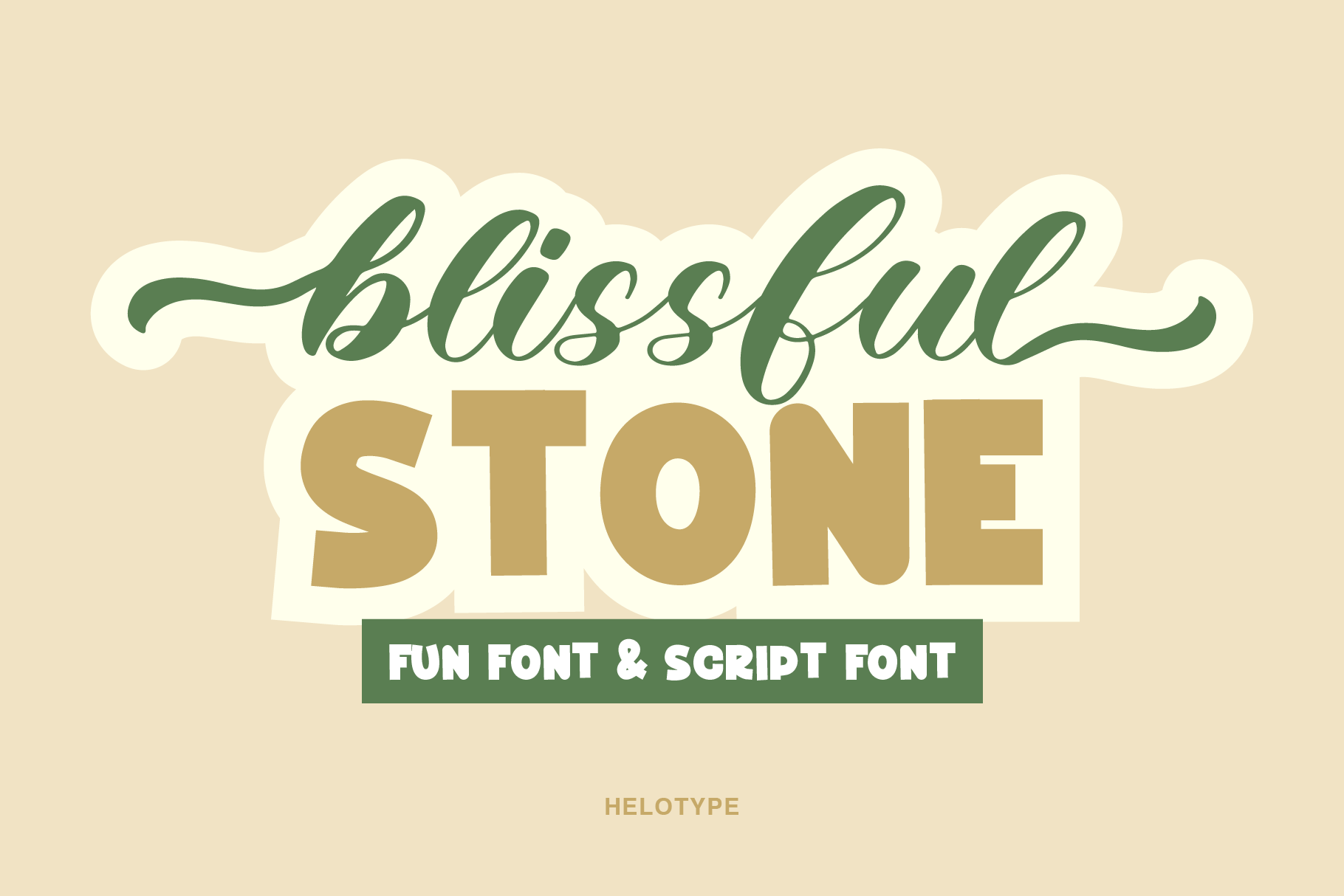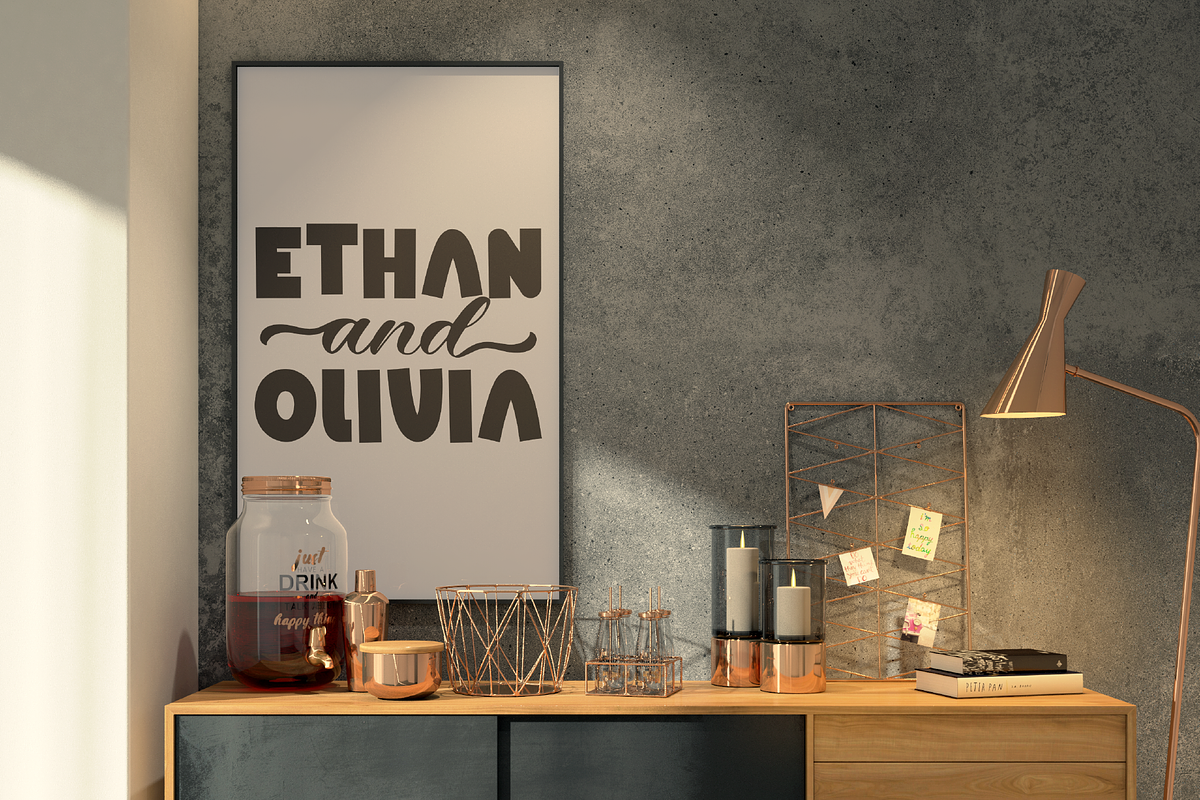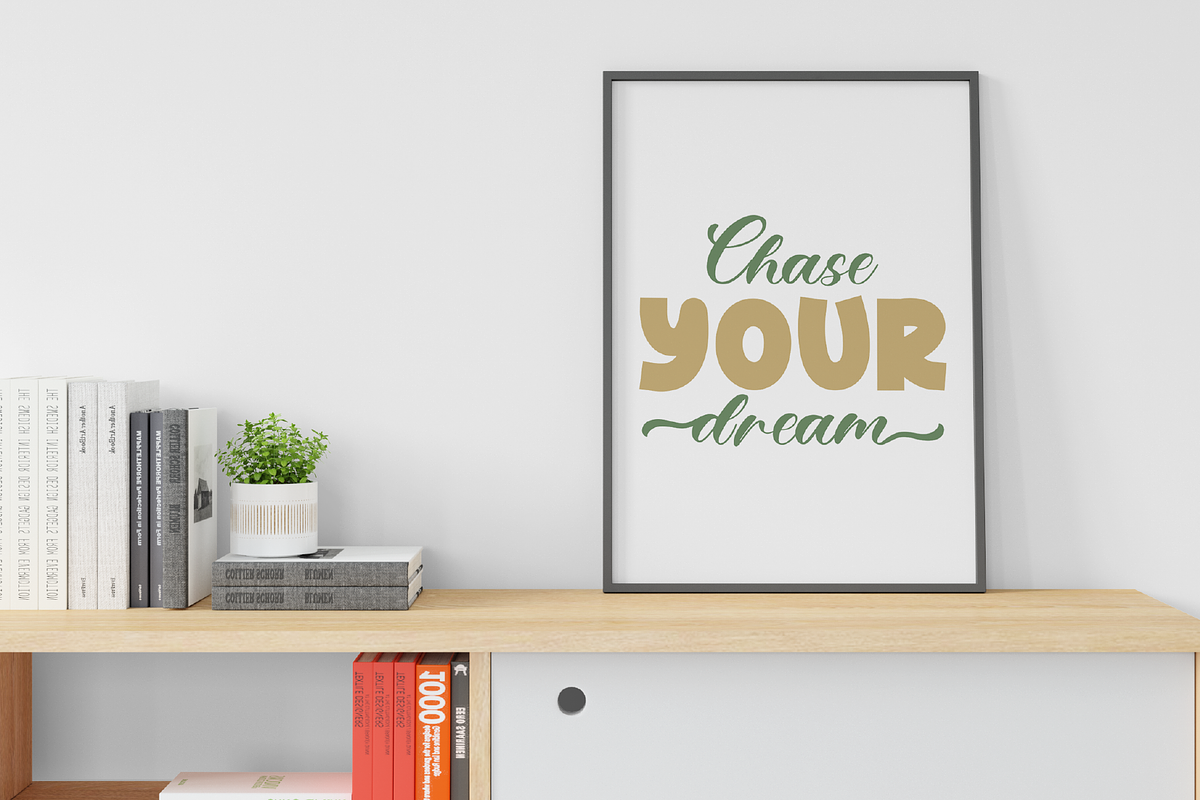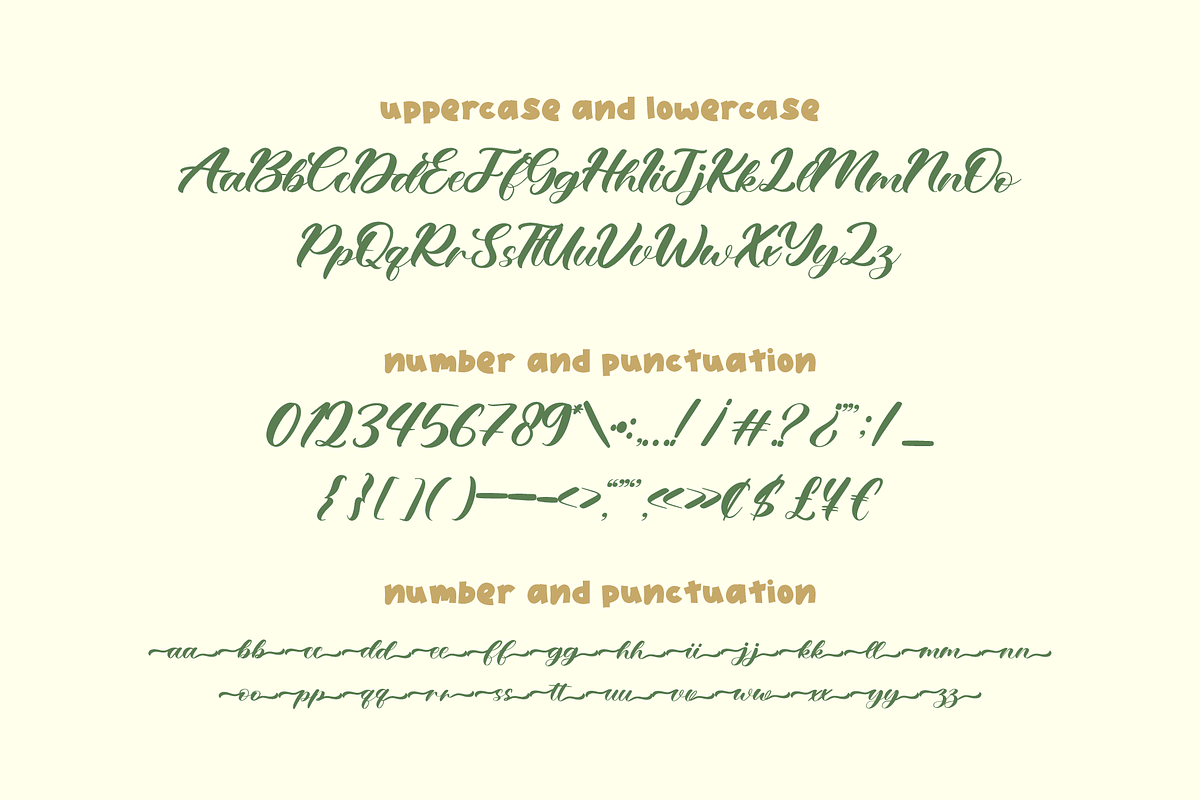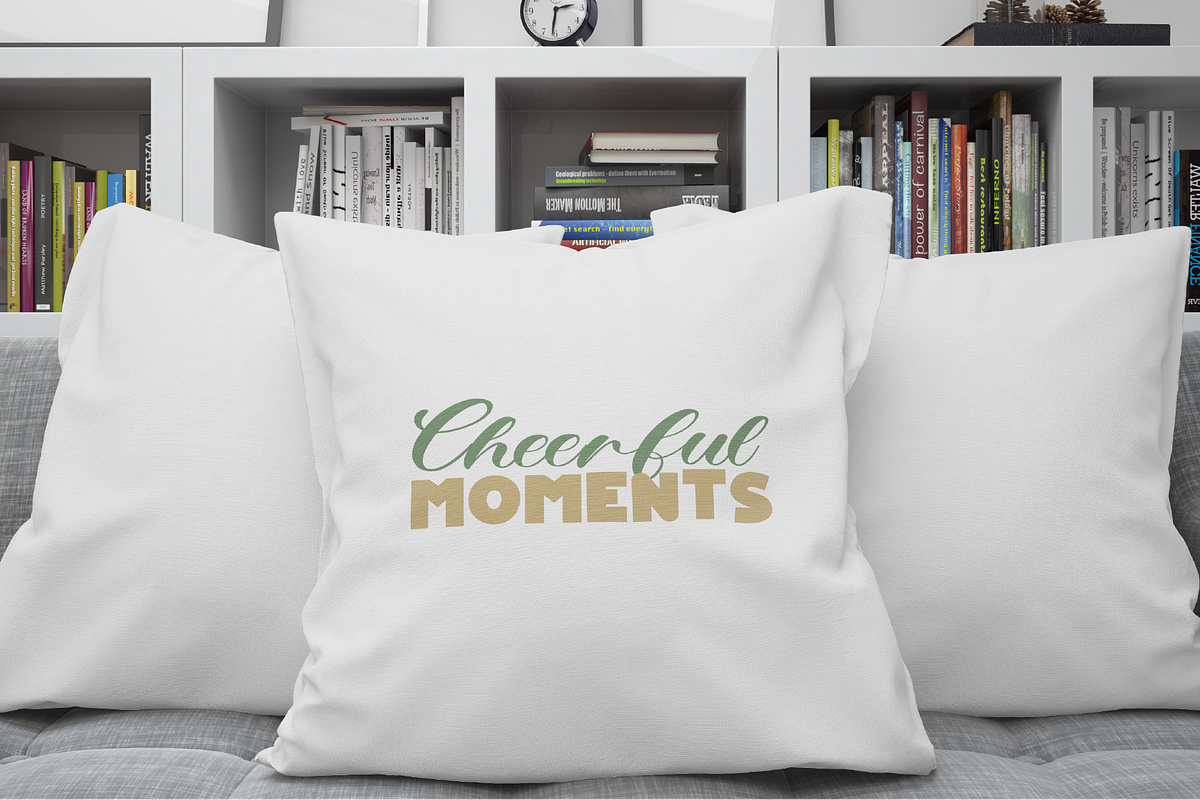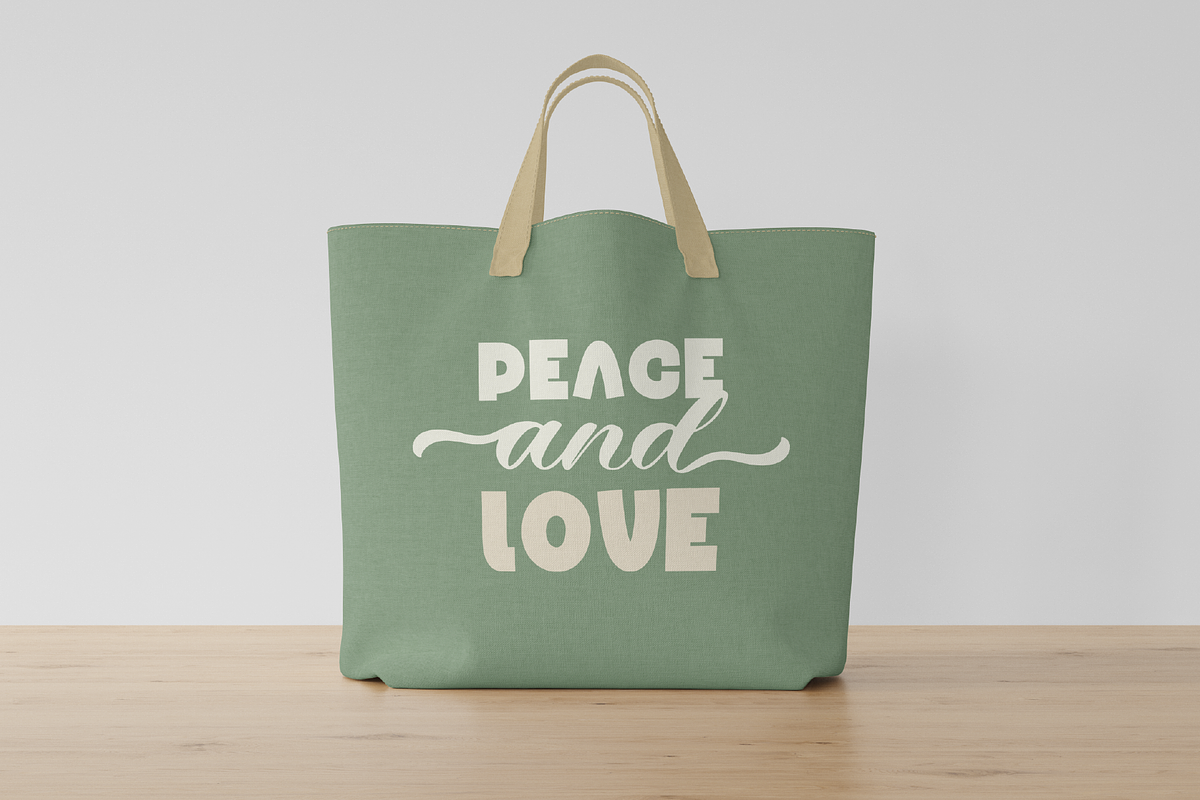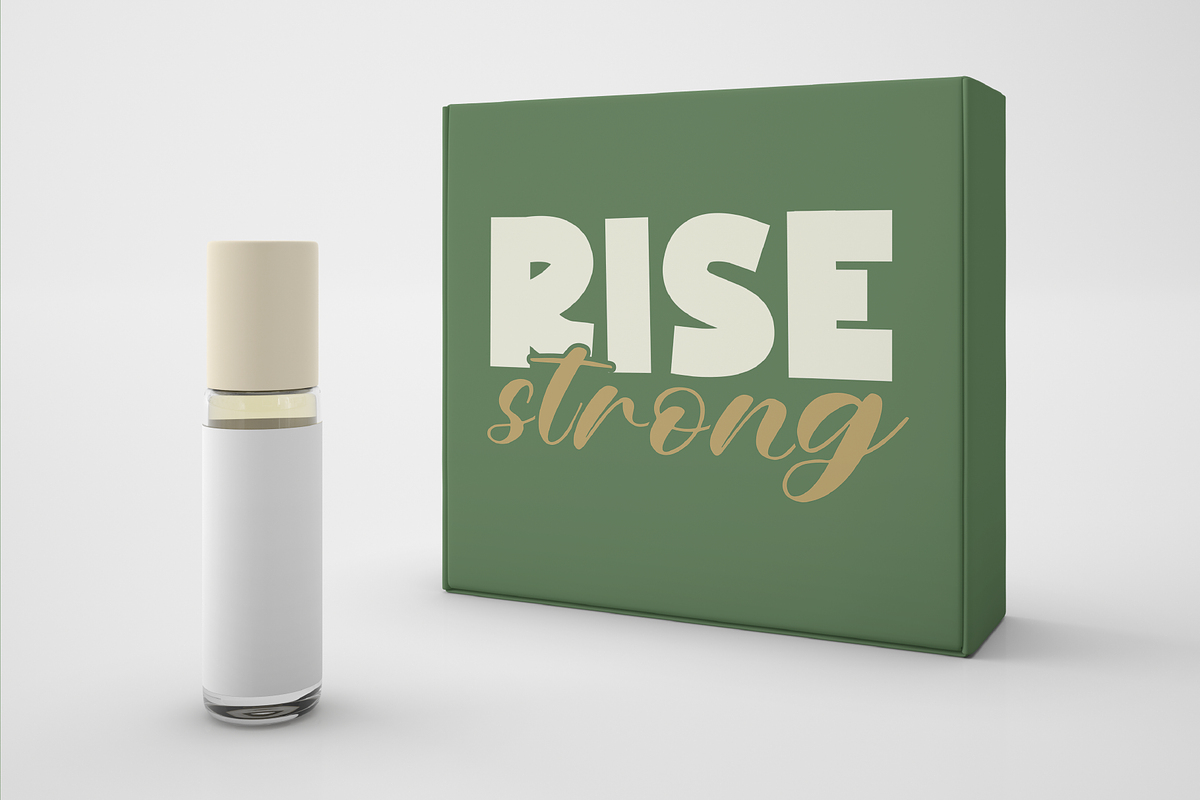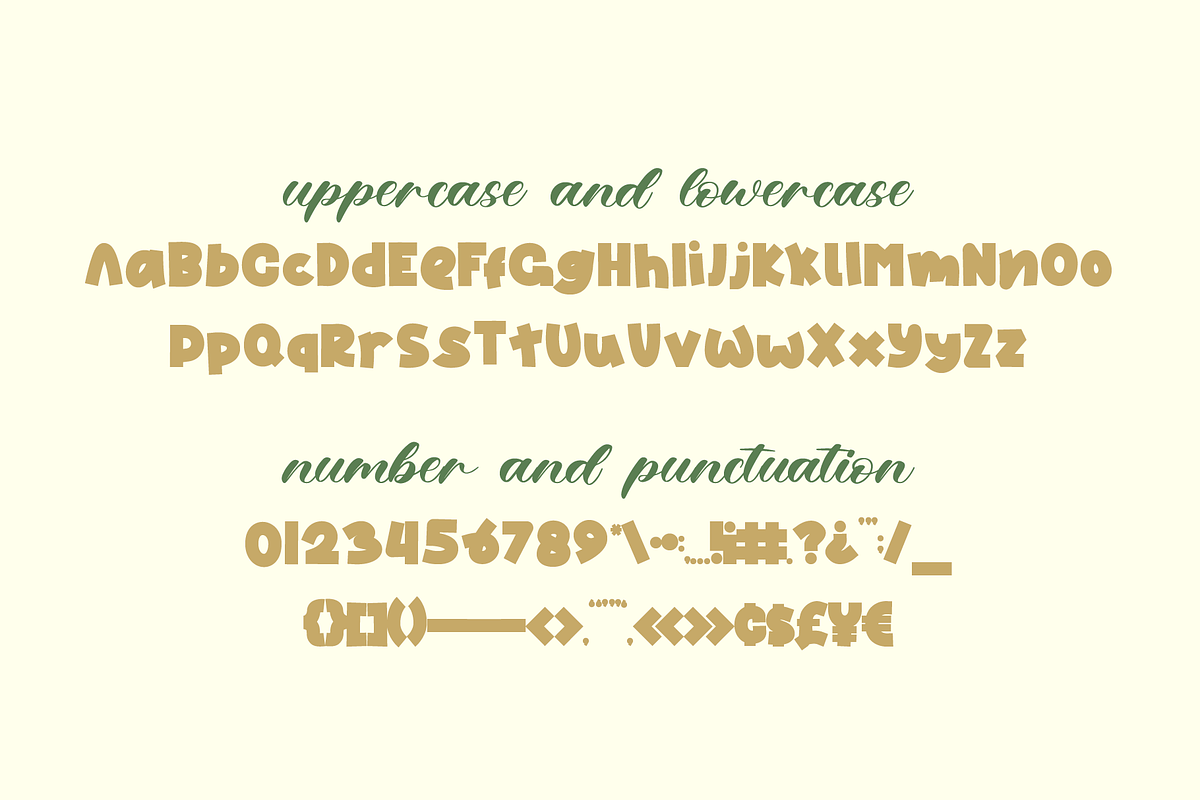
Blissful Stone - Script Font Duo
Blissful Stone is a uniquely crafted font that exudes a perfect blend of serenity and sophistication. This modern typeface boasts a seamless combination of stylish and flowing elements, giving your designs a touch of elegance. Its characters are meticulously designed to achieve a harmonious and balanced look, making it suitable for a diverse range of creative projects.